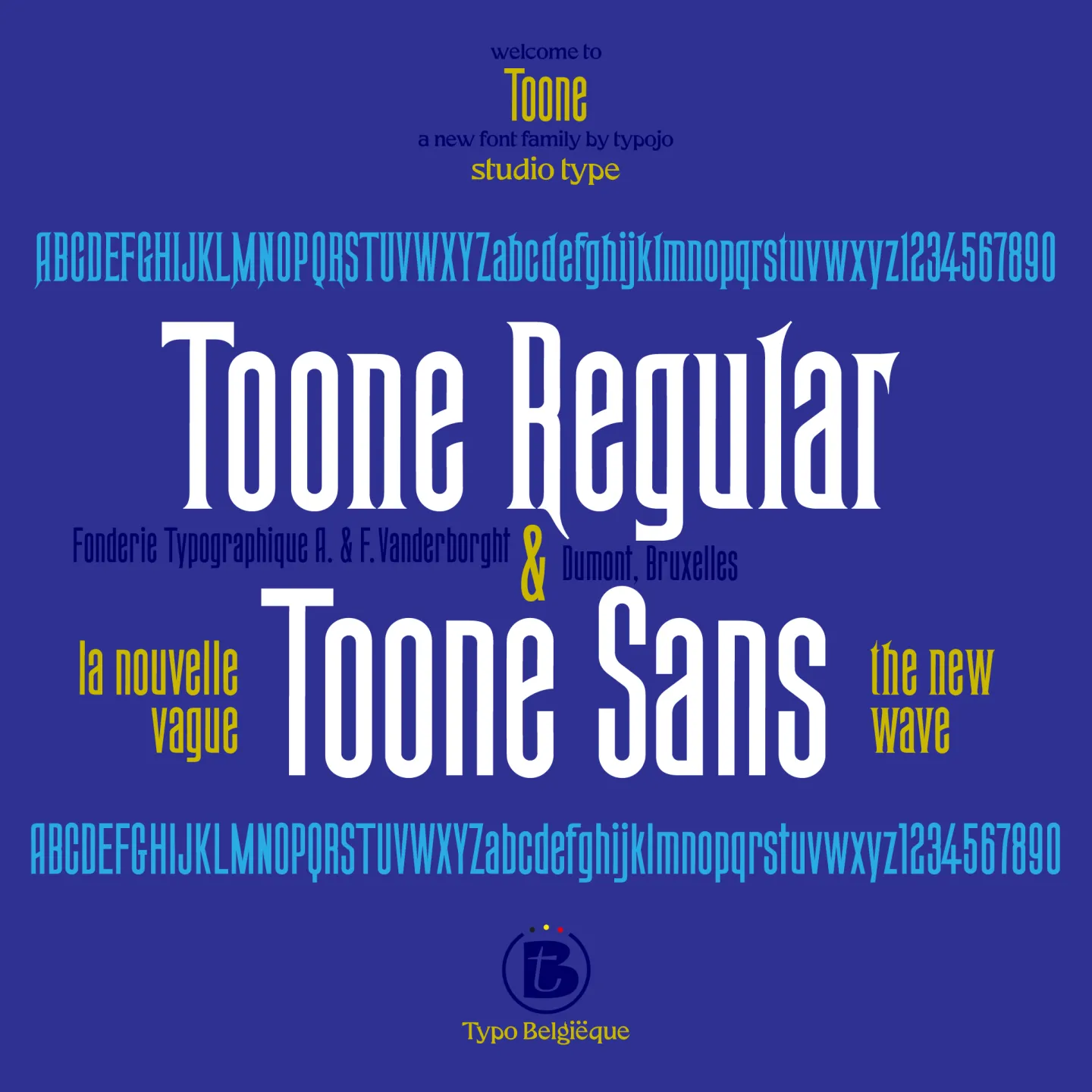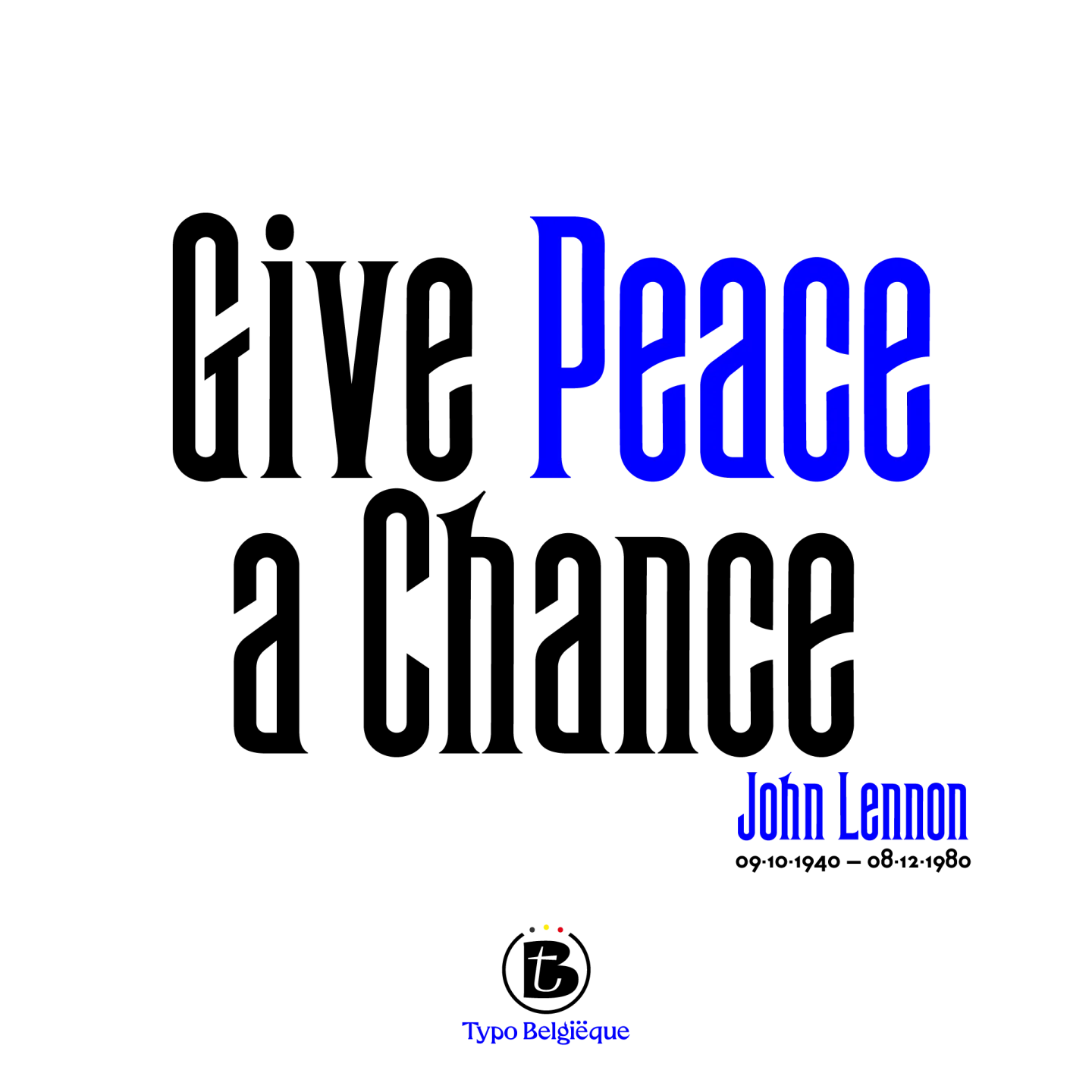
Toone is a new original font family inspired by a thin wooden, elongated poster typeface from the printing type collection of Fonderie Typographique A. Vanderborght & Dumont, a 19th century Belgian type foundry in Brussels.
The Toone font family includes a tall spiky serif & a sans serif version of the same regular type style. The slender and condensed look delivers a clean & contemporary style which makes Toone very suitable for logo’s, editorial & poster design, film credits, advertising, branding and packaging design.
Toone is part of ‘Typo Belgiëque’, a practice oriented scientific research & type design project examining the visual design identity of Belgium in the nineteenth and twentieth century that breathes new life into Belgium’s historical typeface families. ◊